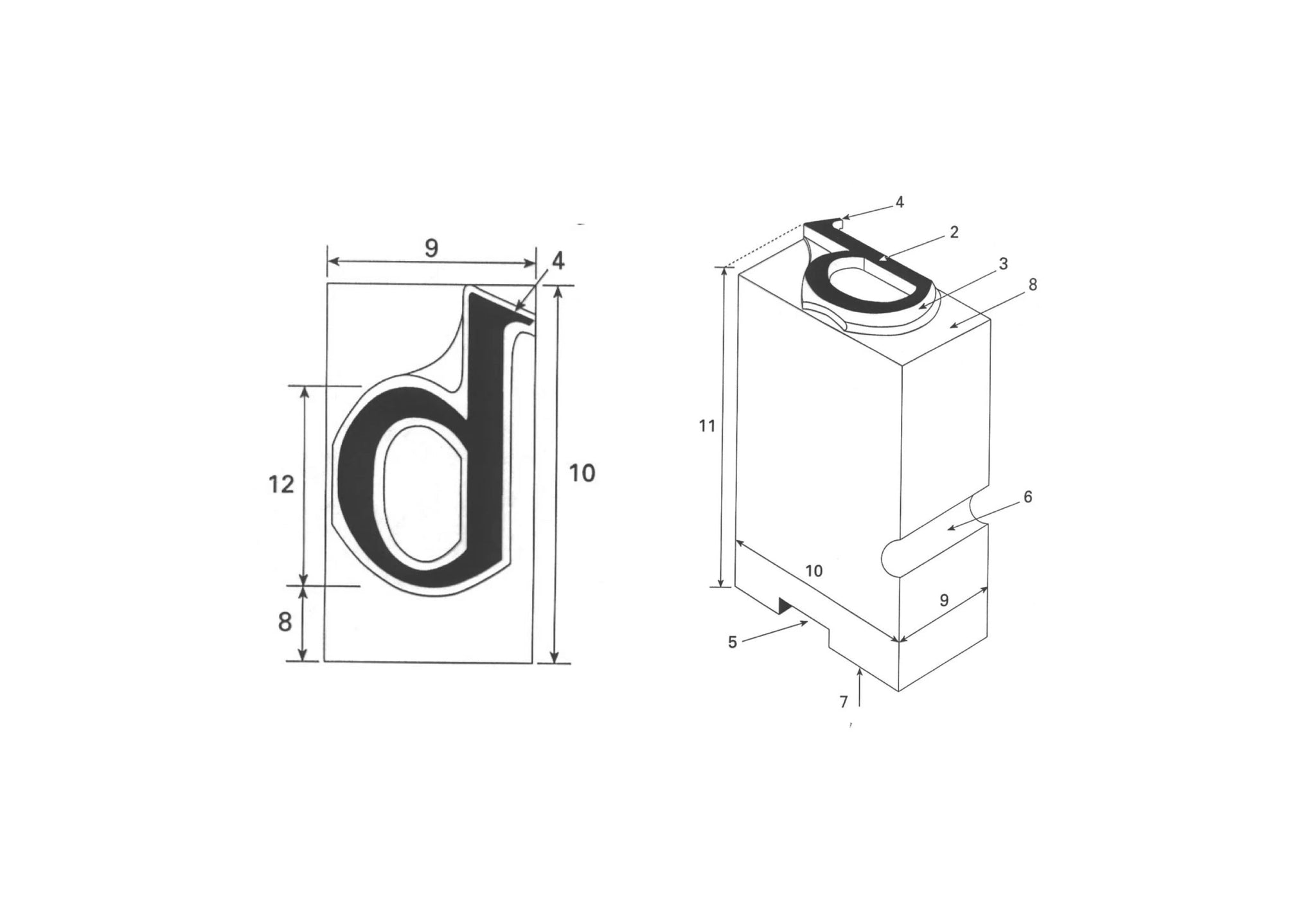
Roman inscriptions were carved in majuscule letters. Majuscule letters are, to us, what we know as uppercase or capital letters. Their design is rigid, modular, and ideal for stone...
Every day writing, however, happened with a pen on papyrus or parchment. Over centuries, the brisk motion of the hand slowly softened these imperial forms, and curves crept in. Strokes became connected, and letterforms adapted to the speed and economy necessary for the time. By late antiquity, scripts like uncial and half-uncial showed the emergence of new styles, rounder letters, and variable heights. They weren’t quite lowercase, but perhaps you could call them lowercase’s earliest ancestors.
The decisive shift arrived in the 8th and 9th centuries under the Holy Roman emperor, Charlemagne, who wanted a unified script for administration and scholarship across his empire. Led by Alcuin of York and other scholars, scribes in Frankish scriptoria (which are writing rooms in medieval European monasteries) developed Carolingian minuscule. This is a clear, spacious hand with ascenders and descenders, consistent word spacing, and a more regular system of punctuation. It served a very practical function, as it was faster to write than capitals, easier to read at small sizes, and highly reproducible from monastery to monastery. As such, Carolingian minuscule is the foundation of our modern lowercase and was the calligraphic standard of medieval Europe.
When the Renaissance looked back to revive “classical” learning, Italian humanists mistook those Carolingian manuscripts for ancient Roman writing and, subsequently, as those in the Renaissance did, imitated them. Printers in Venice translated the humanist hand into the first Roman types. A few decades later, Aldus Manutius and punchcutter Francesco Griffo introduced italics (heard of it?), a compact, slanted companion based on chancery writing (cursive). Printers paired these new minuscule letterforms with Roman inscriptional capitals for titles and initials, creating the cap–lowercase system we still use. Uppercase kept its stone-cut prestige, whilst lowercase characterised the legibility of script.
Over the centuries, as we’ve seen, language and typographic and calligraphic styles regularly changed, so it’s interesting to wonder why lowercase has continued to survive as the standard practice. This is, in part, because it improves reading efficiency. Tall ascenders on b, d, h, k, l and long descenders on g, j, p, q, y give words distinctive silhouettes, helping the eye review text rapidly. Lowercase also affords sentences the gift of space, meaning more information can be imparted. By the time printing was widespread across Europe, the benefits of lowercase became almost immutable. Lowercase had created – or, maybe, perfected? – a workhorse typographic system that allowed for true hierarchy at a base level.
Although the standard was set, regional tastes reshaped the minuscule, with the high-contrast blackletter of northern Europe visually competing with the spacious, airy romans of Italy and France. Here, geographic associations with type style and setting rooted themselves in visual culture. Punctuation, numerals, ligatures, and language-specific forms evolved alongside, but the Carolingian logic – average x-height, ascenders/descenders and rhythmically spaced words – remained at the centre of Latin reading and, indeed, everyday text and type. There’s a lot of history in every letter you write and read, remember that.
Also, on a fun note, the shift in common parlance from majuscule and minuscule to upper- and lowercase comes from a rather industrial place. In metal type shops, compositors stored big letters in a tray set above the bench and small letters in the tray below. Hence, uppercase (the case on top) and lowercase (the case below it).
Similarly, the California Job Case is very intriguing and instrumental in how we do things today. The California Job Case was a late-19th-century drawer that combined the separate upper and lower cases into a single, standardised layout for faster hand-setting, with the idea that typesetters didn’t need to move their hands as far to grab different letters. Its compartments are sized and positioned by frequency, with e, t, a, o, i, n sitting in large, central boxes and spaces, quads, and punctuation clustering around the compositor’s dominant hand. Capitals are grouped together to the right. It’s a fascinating heat-map, if you will, of English and efficient engineering.